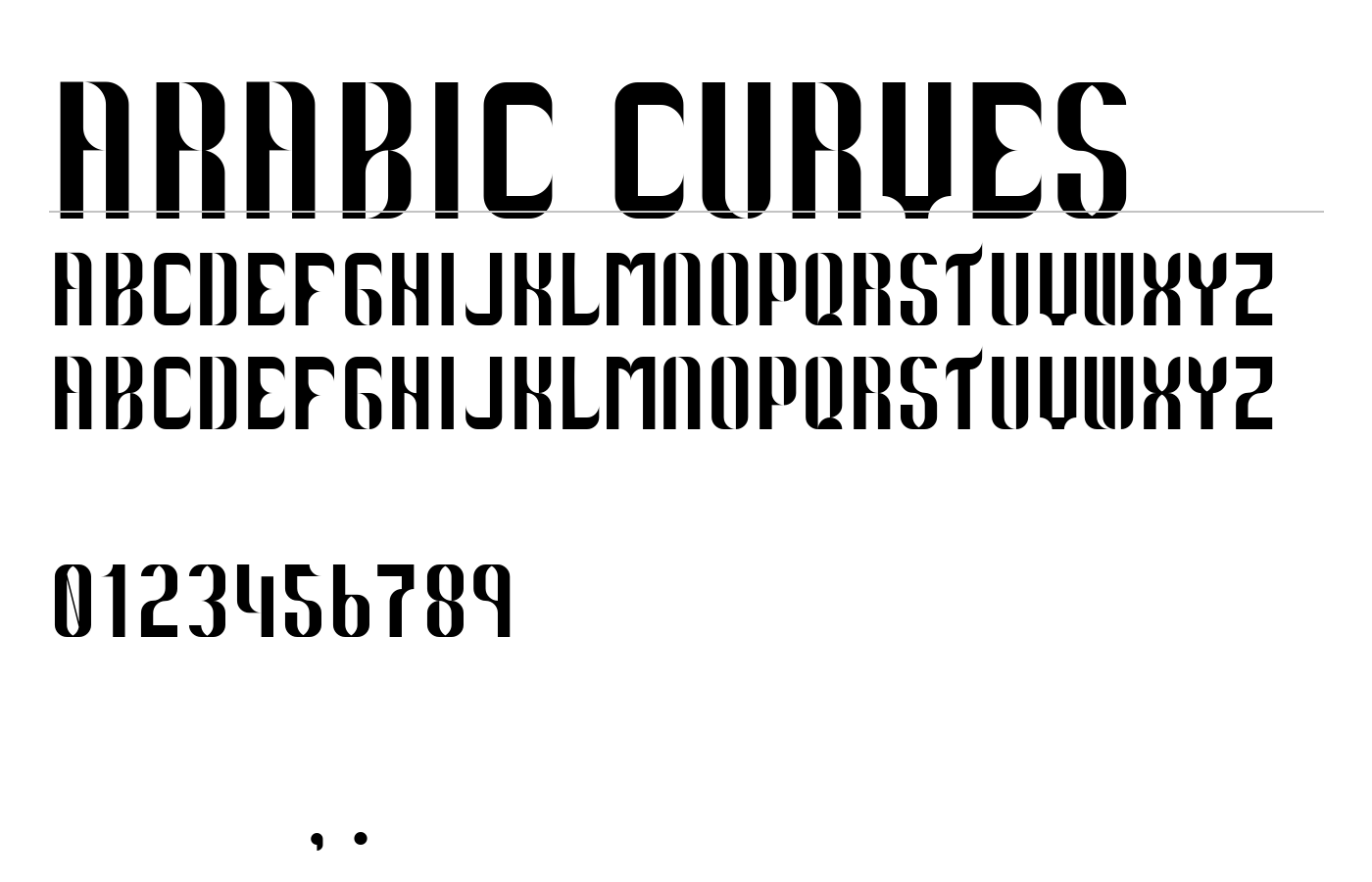
Arabic Curves is a bold, condensed sans serif font with a striking geometric style influenced by Arabic calligraphic shapes. Its high contrast between thick and thin strokes, sharp edges, and unique cutout details give the typeface a modern, sophisticated feel that works beautifully for eye-catching headlines, logos, and branding in fashion or luxury contexts. This font’s elegant yet edgy personality makes it perfect for projects seeking a distinctive and contemporary look.
Arabic curves Font
About Arabic curves Font
| Font family | Arabic curves Font |